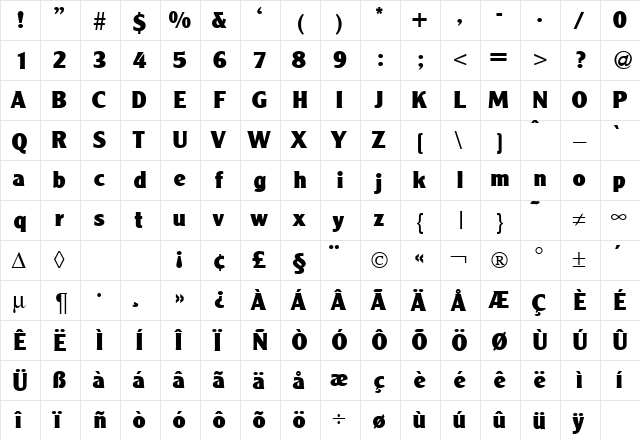
ClearGothicUltra Regular
Design Context for ClearGothicUltra Typeface
ClearGothicUltra has the quiet confidence of well-executed sans-serif typography: versatile, unobtrusive, and dependable at any size.
Font Pairing: Works well alongside a characterful serif or display font that can carry the expressive load while ClearGothicUltra handles the functional copy.
Pro Tip: Use ClearGothicUltra for UI labels, navigation, and short-form body copy where clean legibility is the priority.